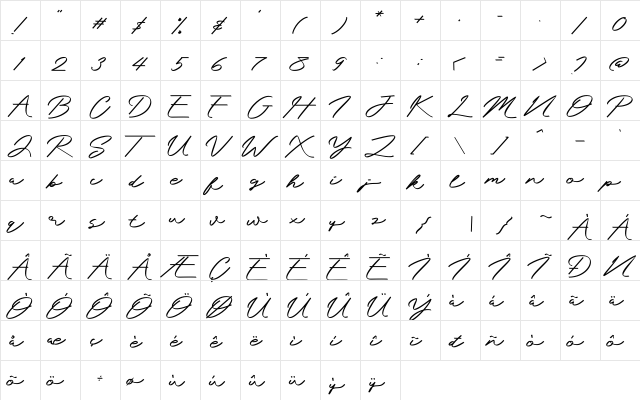
Mengkengs Regular
Design Context for Mengkengs Typeface
Mengkengs is a composed and adaptable typeface that performs quietly and consistently across a wide range of design contexts.